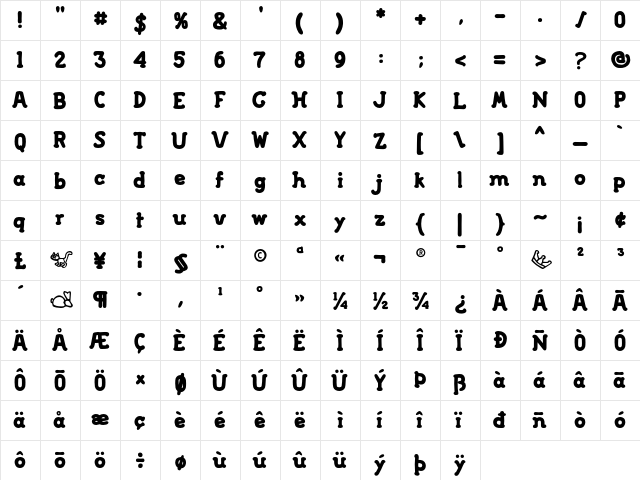
FontSoupCatalan ExtraBoiled
Design Context for FontSoupCatalan Typeface
FontSoupCatalan offers clean, dependable letterforms without strong stylistic allegiance, making it a practical choice for designers who need flexibility.